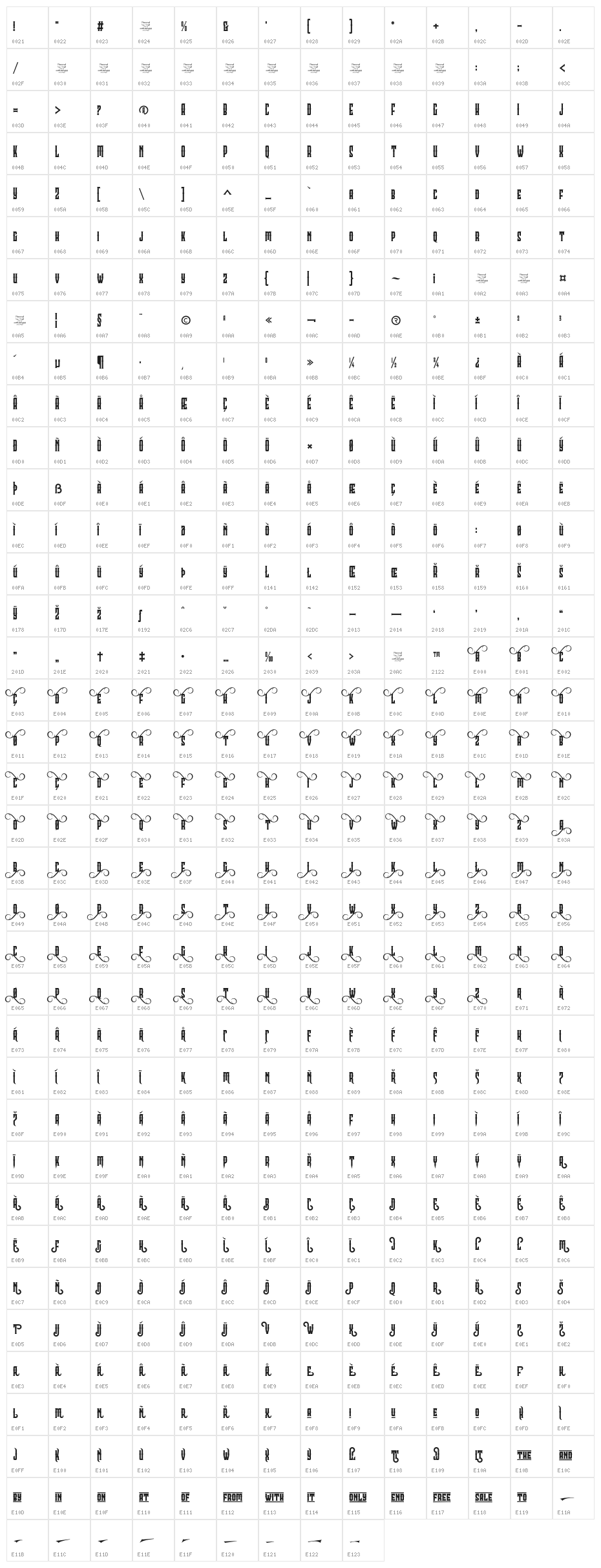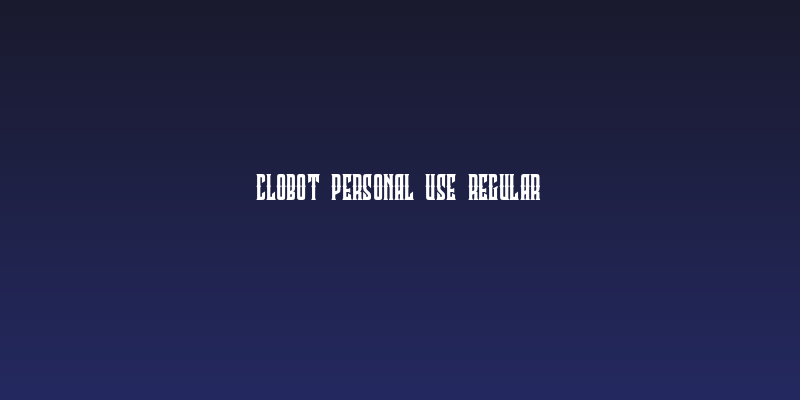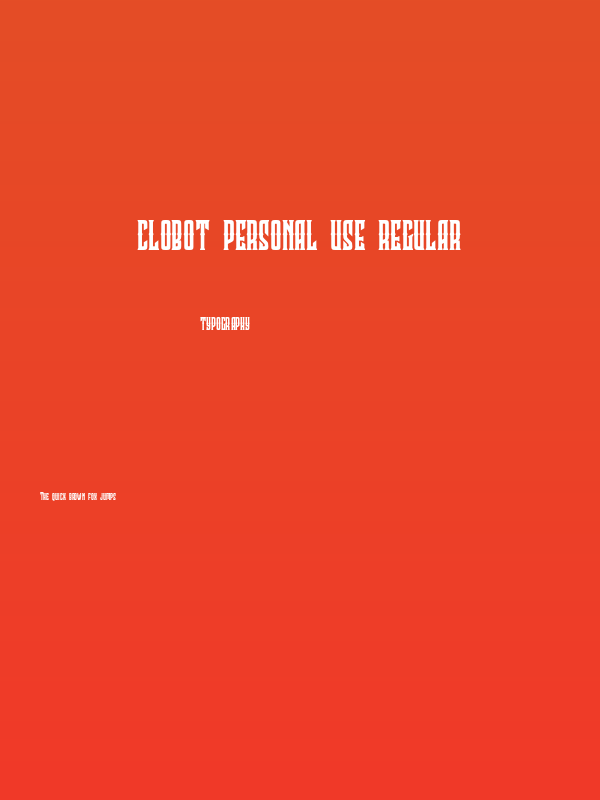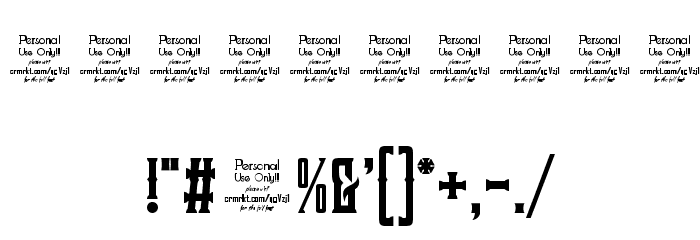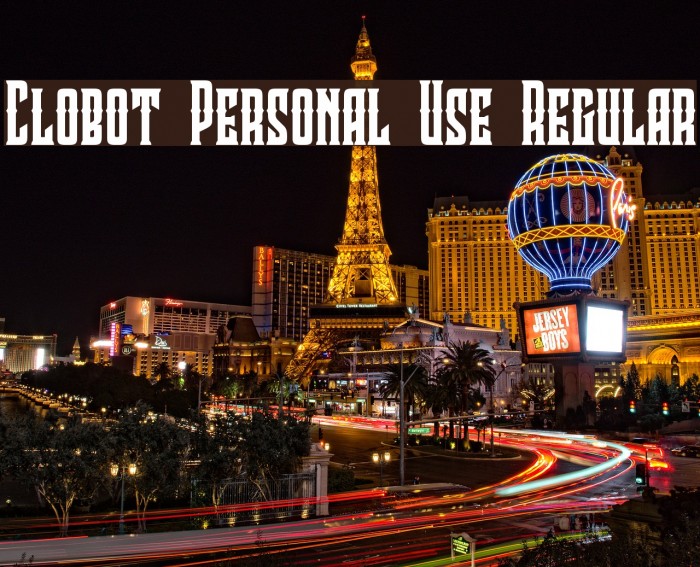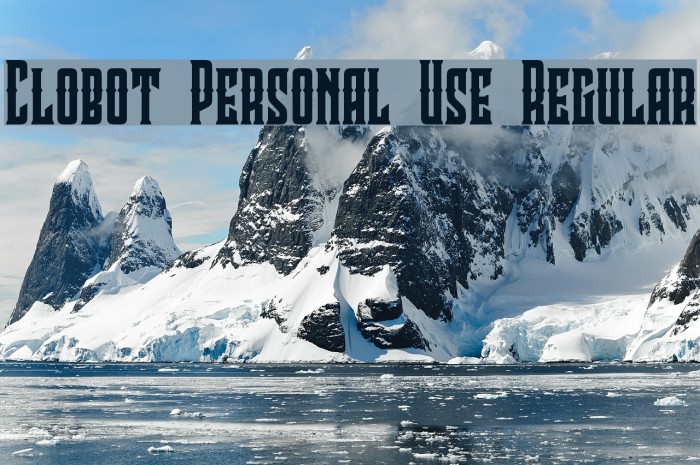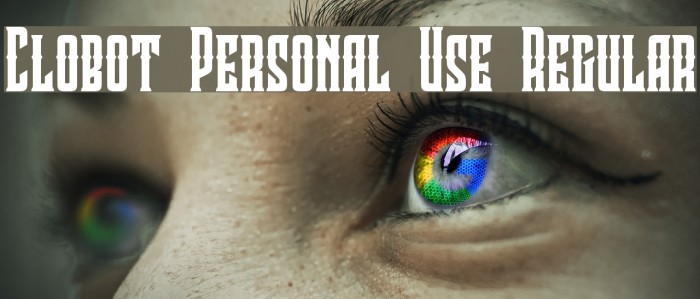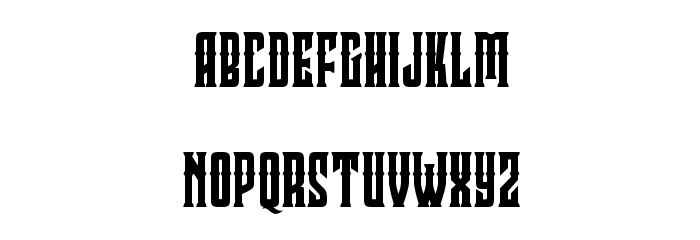
Clobot Personal Use Regular Font
Clobot Personal Use Regular Description
This font features a bold and striking design with a strong presence. The characters are tall and narrow, with a distinct geometric style that gives it a modern and edgy look. The uppercase letters are particularly prominent, with sharp angles and a consistent stroke width that adds to the font's boldness. The lowercase letters maintain the same geometric style, ensuring consistency throughout. The numbers and special characters are equally bold, making them stand out effectively. This font is ideal for projects that require a strong visual impact.
| Proposed Projects | Ideal for posters, logos, headlines, and branding materials that require a strong visual impact. |